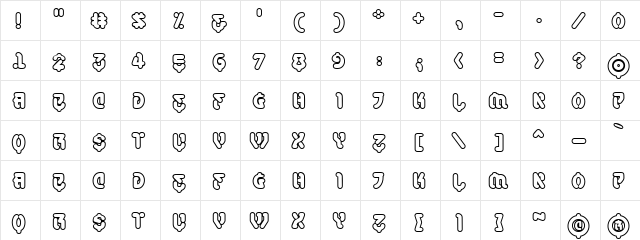
SamuraiCabCo Outline BB Regular
Design Context for SamuraiCabCo Outline BB Typeface
SamuraiCabCo Outline BB brings ornamental detail and strong personality to headlines and identities, where visual impact matters more than quiet functionality.
Font Pairing: Pair with a clean neutral sans-serif for body copy to let SamuraiCabCo Outline BB's character lead without overwhelming the composition.
Pro Tip: Treat SamuraiCabCo Outline BB as the centrepiece of your typographic hierarchy. One strong heading set in a decorative face can carry an entire layout.